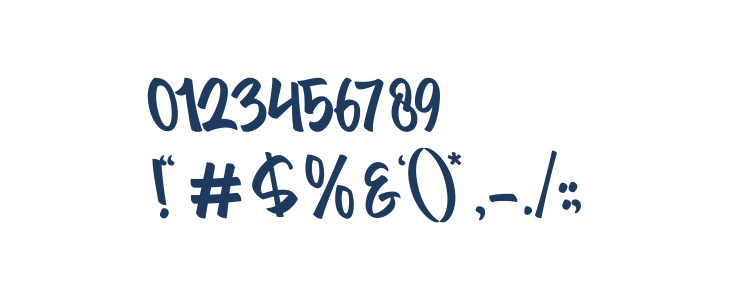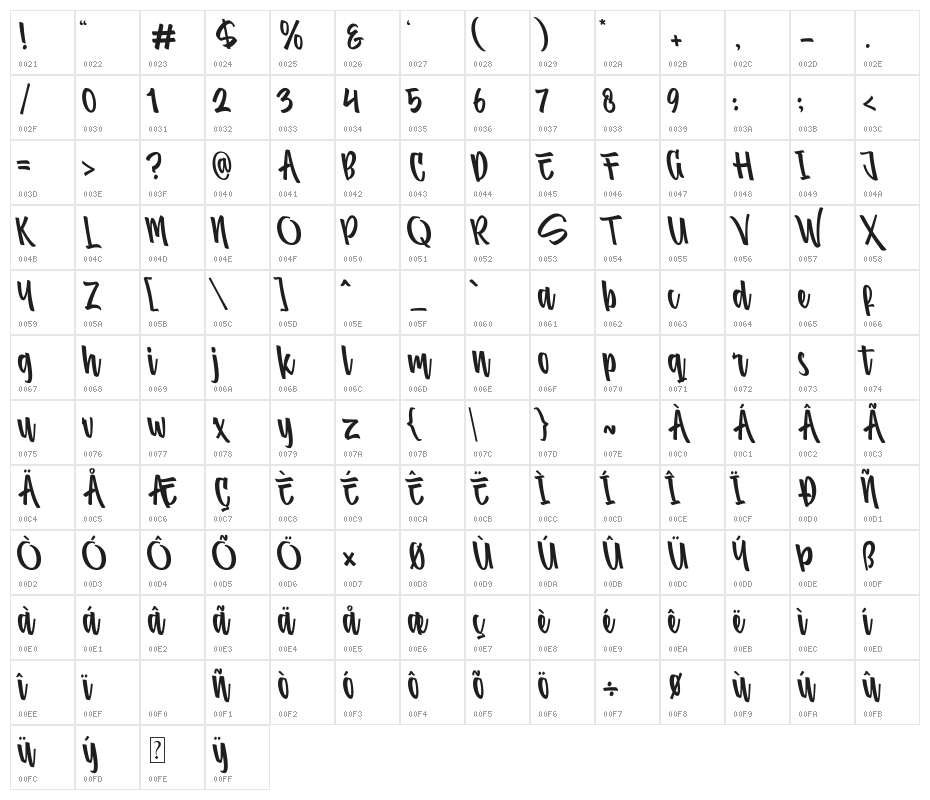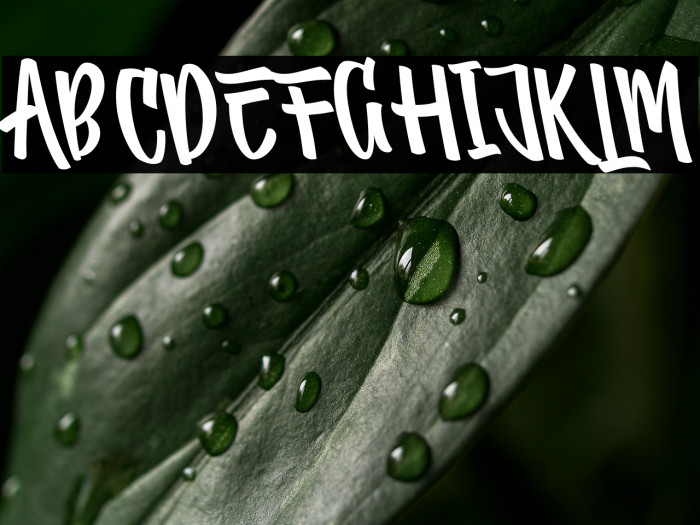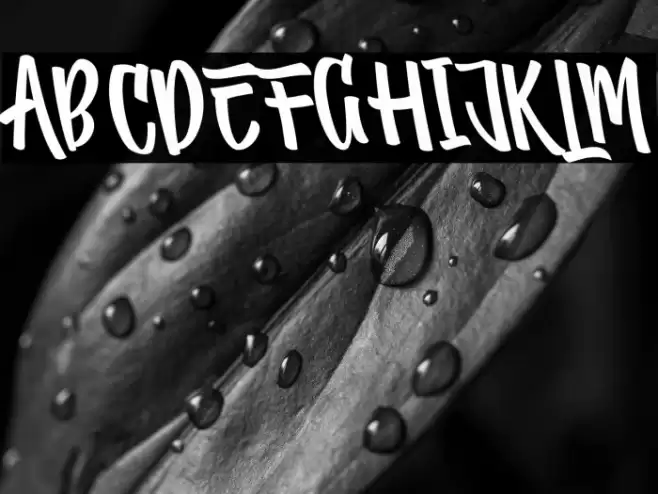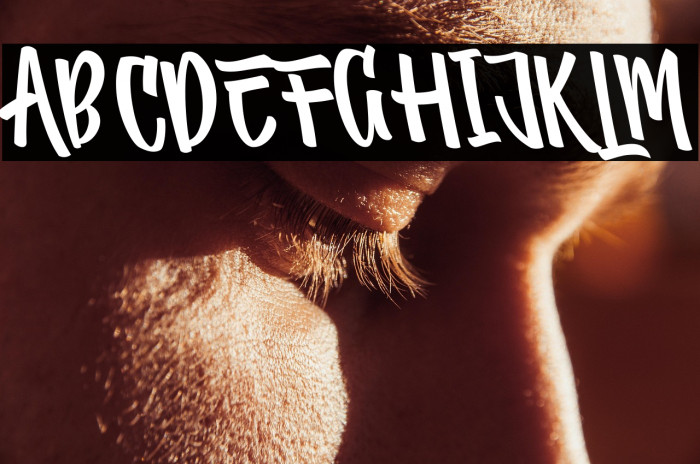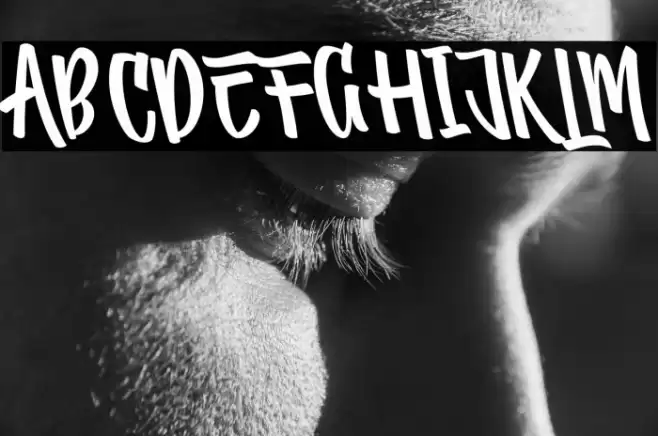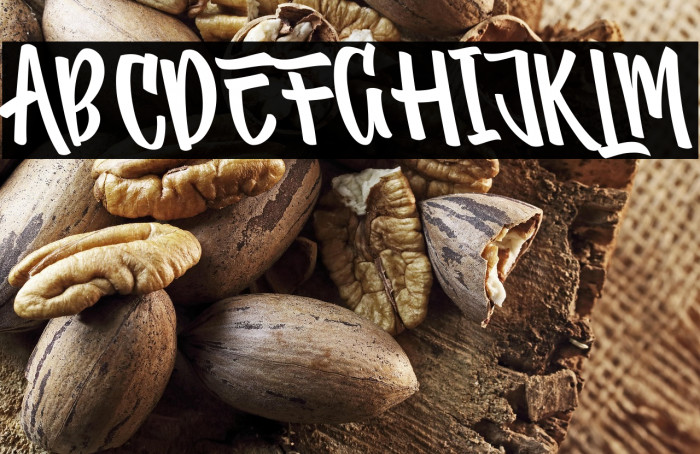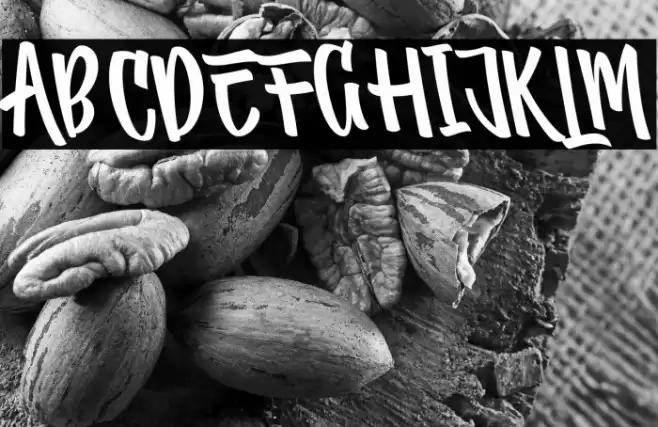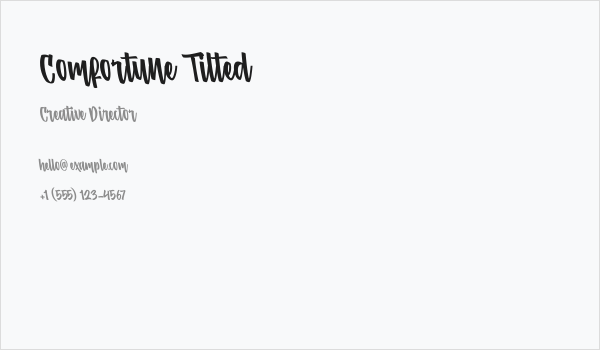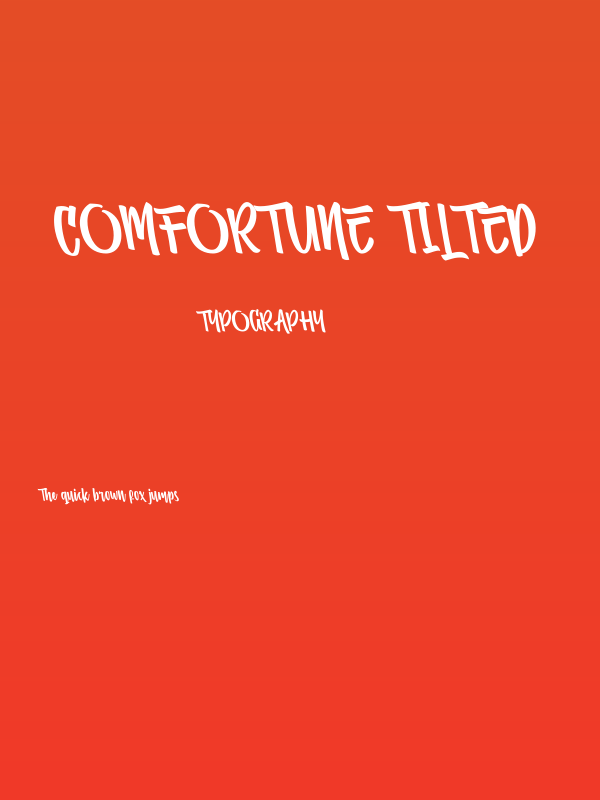
Comfortune Tilted Font
Comfortune Tilted Description
This font features a playful and energetic handwritten style with a noticeable tilt, giving it a dynamic and informal appearance. The characters are bold and slightly condensed, with a consistent stroke width that maintains readability while adding a touch of whimsy. The uppercase and lowercase letters flow seamlessly, creating a cohesive look that is both modern and approachable. The numerals and special characters complement the alphabet with the same lively flair, making it suitable for a variety of creative applications.
| Proposed Projects | Ideal for greeting cards, playful branding, children's books, and social media graphics. |